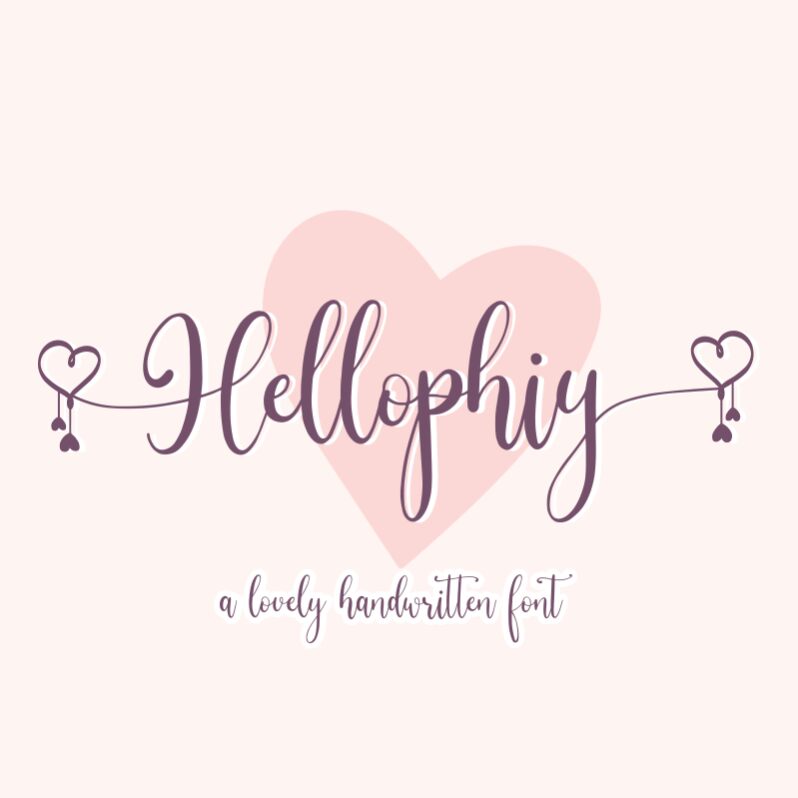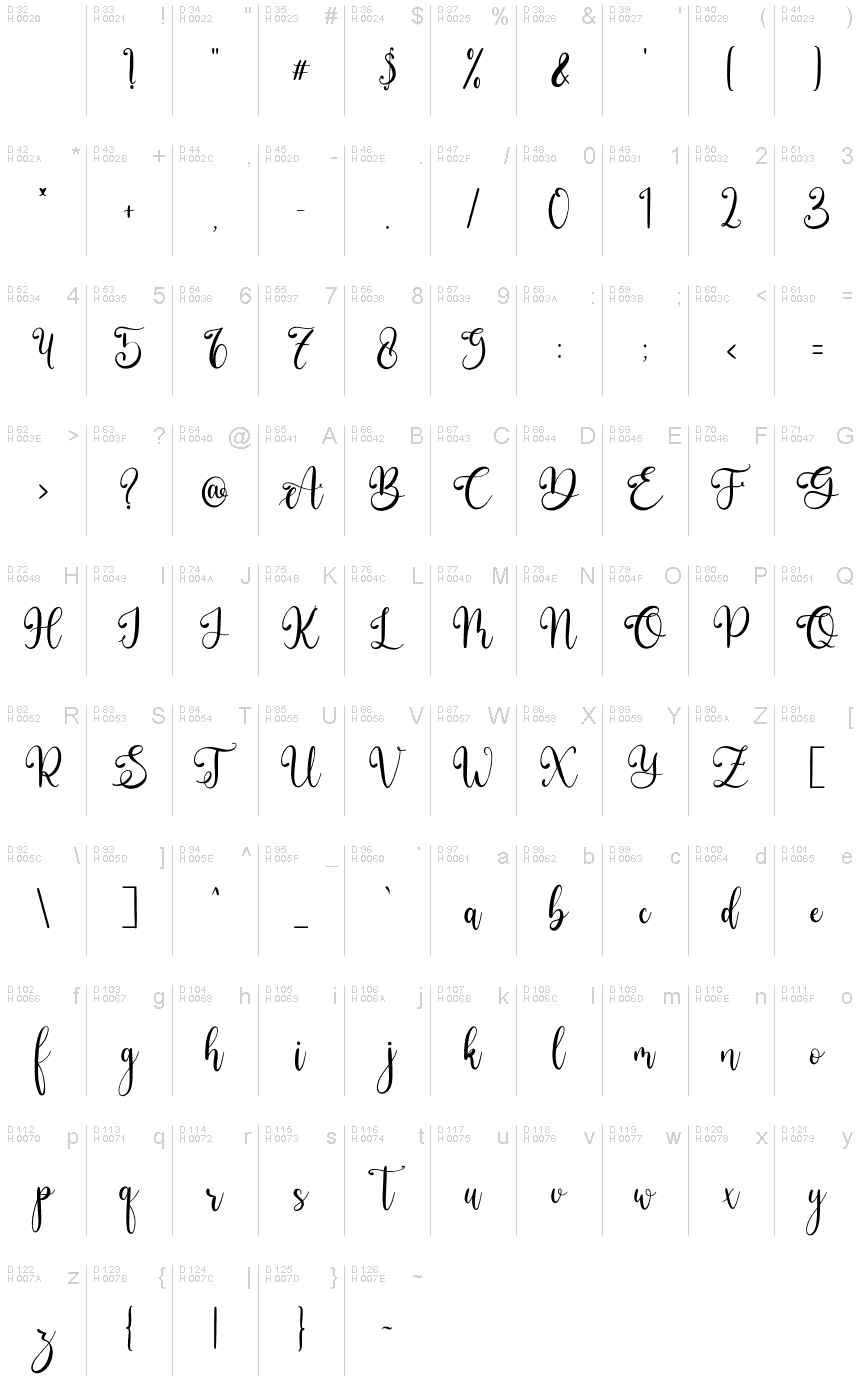
Hellophiy
Hellophiy by Qwrtype Foundry is a lovely calligraphy font with a light touch and condensed width. Perfect for adding a unique and creative flair to your projects, Hellophiy is ideal for creating beautiful wedding invitations, greeting cards, book covers, posters, and logos. Let Hellophiy bring its stylish charm to your designs!